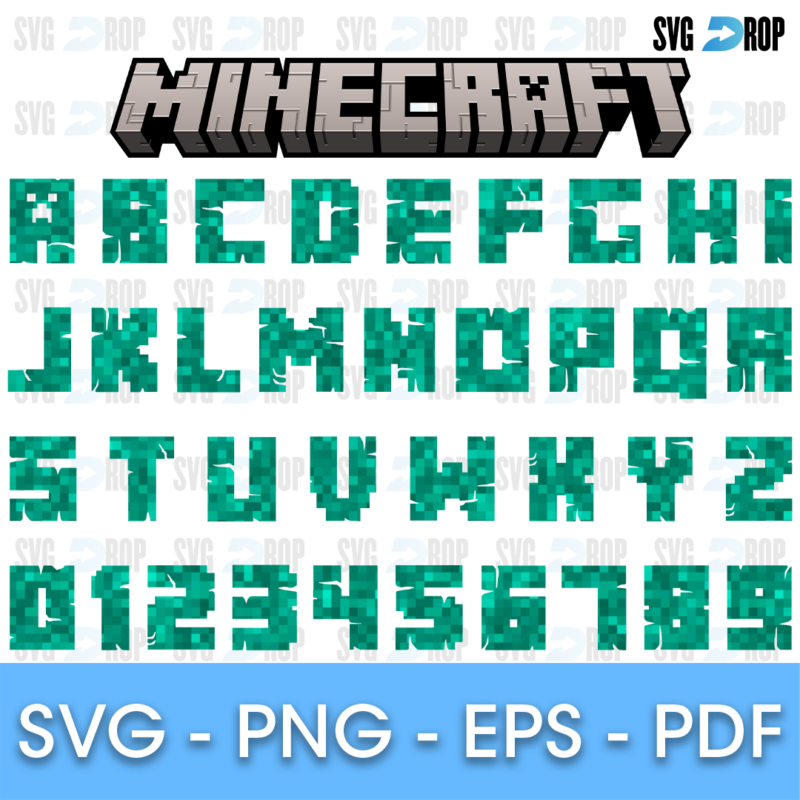
Minecraft Grass Block Pixel Font SVG
✨ A pixel block alphabet in the Minecraft style with green grass block texture: A to Z uppercase letters, numbers 0 to 9 and the stone Minecraft logo.
✏️ Personalised names, birthday shirts, banners, signs and cake toppers for Minecraft fans, cut in vinyl or printed.